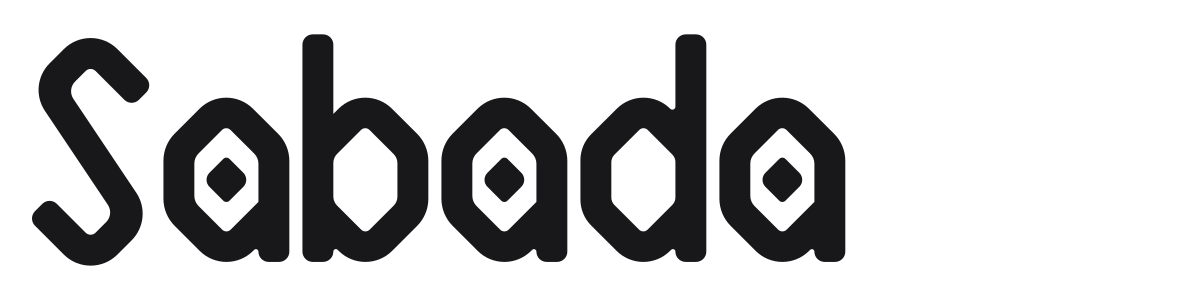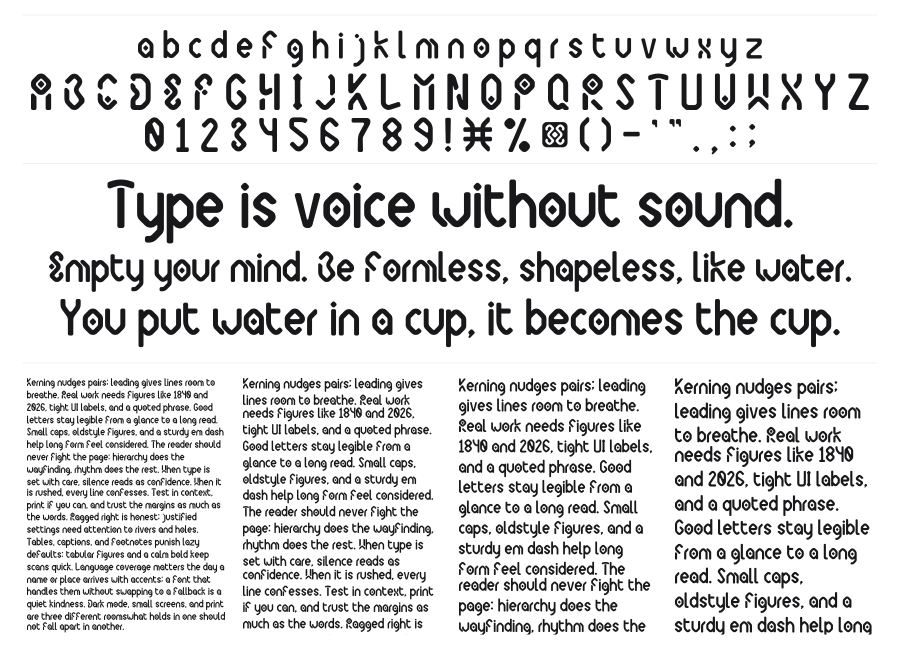
Sabada
Sabada is a bold rounded display font with heavy groovy curves and a distinct 1970s personality. Diamond-shaped counters inside key letters give it an unusual, almost tribal rhythm that sets it apart from ordinary bubble fonts. It works best large, where its thick strokes and playful geometry can make a real impression.